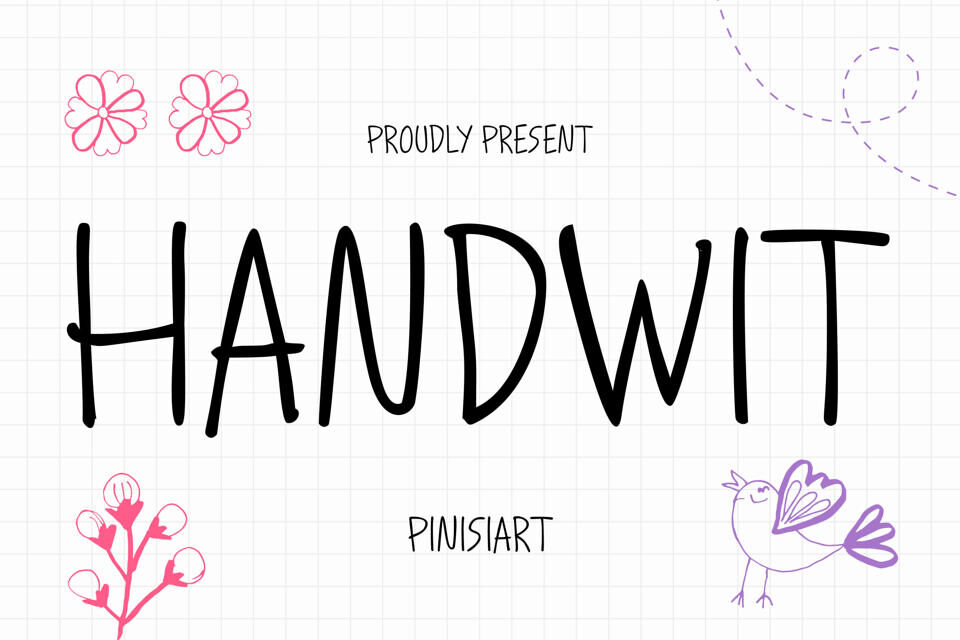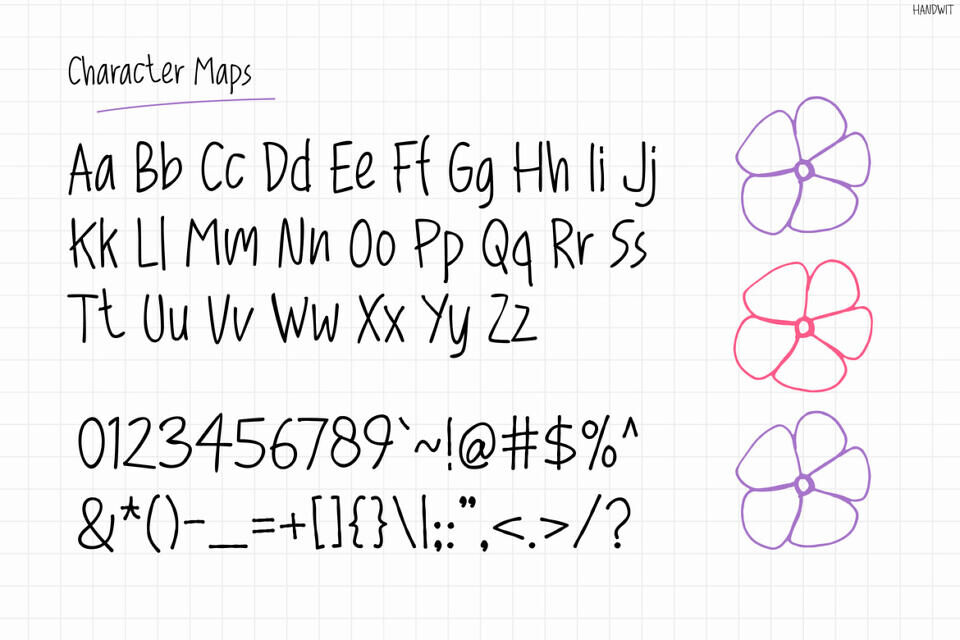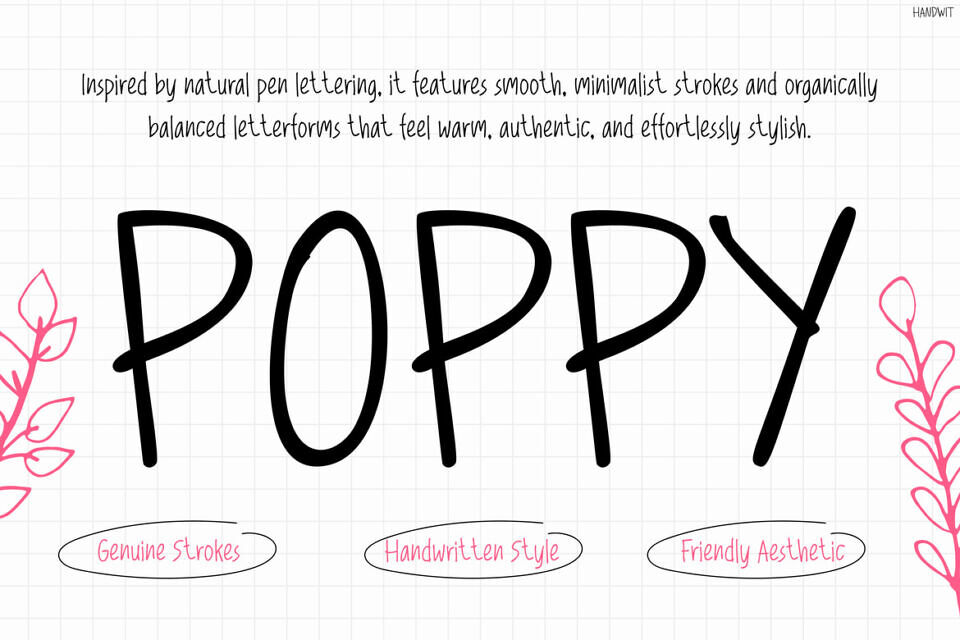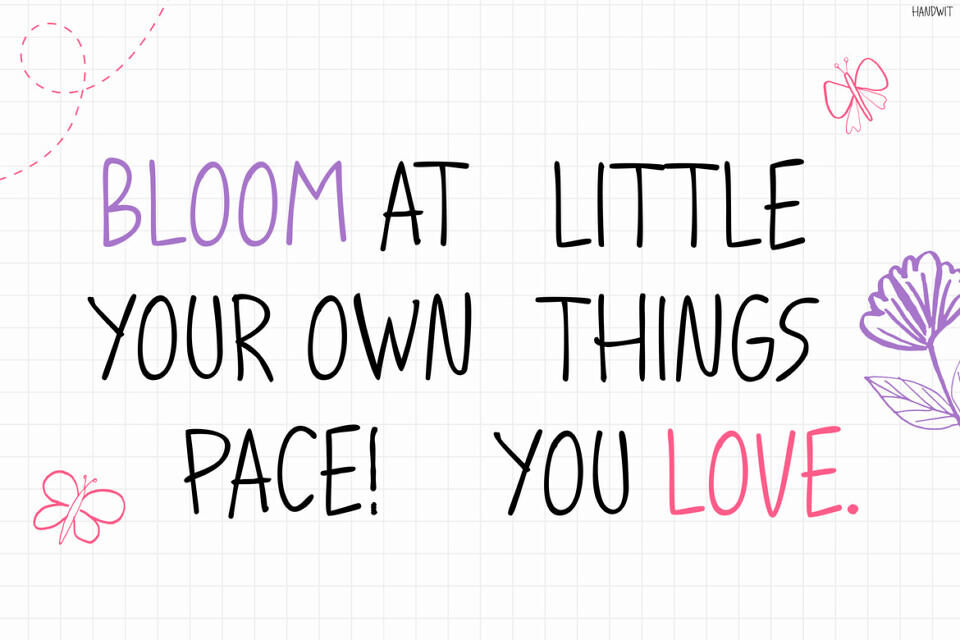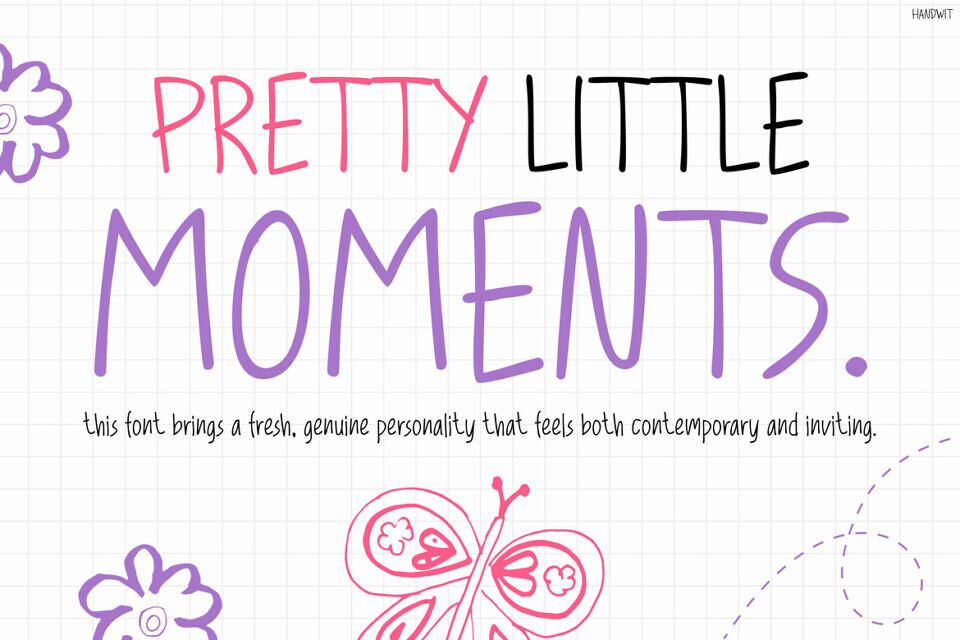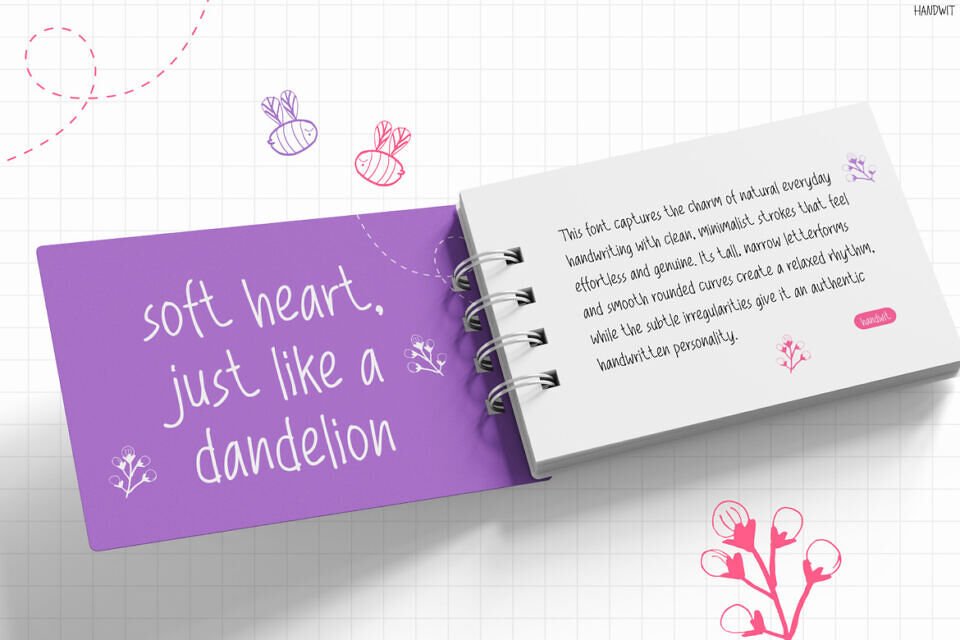
The “Handwit” font mimics the warmth of real handwriting with its smooth, casual strokes. It uniquely incorporates natural imperfections, giving it authentic charm.
The font’s simplicity and playfulness make messages friendly and easy to read. This creates a human touch, making designs more relatable and memorable. Whether used for quotes or branding, “Handwit” helps connect with audiences in a genuine way, making every sentence feel personal and heartfelt.